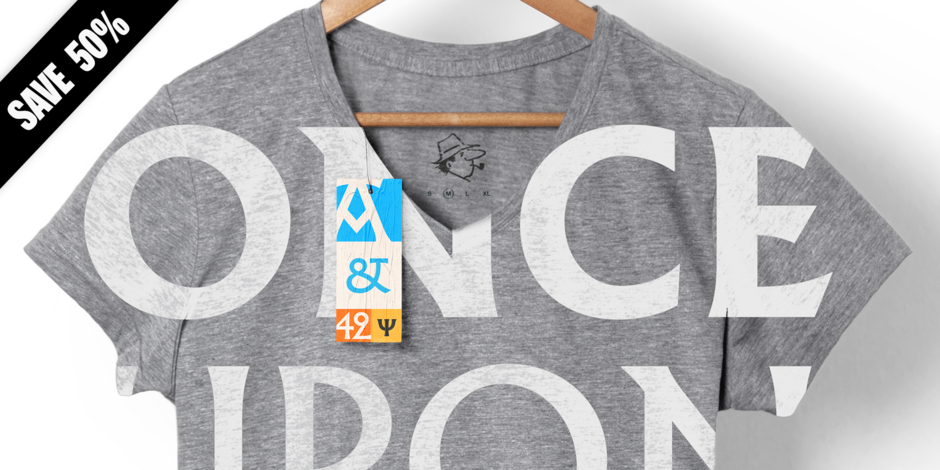
Albertus® Nova by Monotype
Albertus® Nova is a faithful digital revival of Berthold Wolpe’s earlier design of Albertus and is one of the five designs in The Wolpe Collection of typefaces. This new design enlarges the typeface set from its previous two weights into a robust set of five ranging from thin to black, all with extended language support including Cyrillic and Greek. Berthold Wolpe began working on Albertus in 1932, at the encouragement of Stanley Morison. Morison saw an example of Wolpe’s engraved lettering and liked it so much that he commissioned a typeface based on the design. Since then, the original Albertus typeface has been used on book covers, in branding, on signs and in video games.
Alternate Gothic by Linotype
Alternate Gothic was designed by Morris Fuller Benton for the American Typefounders Company (ATF) in 1903. A version for the Intertype machine was released in 1958. The style of Alternate Gothic is in the 19th Century manner. All three weights of Alternate Gothic are bold and narrow. In fact, this face is essentially a condensed version of Benton’s other well-known sans serif types, like Franklin Gothic or News Gothic. In the early twentieth century, the modern concept of type families” had not yet been formed. Although Benton designed his sans serifs to harmonize with each other, they were given different names. Robust, dark, and coolly competent, Alternate Gothic is a good choice when strong typographic statements must fit into tight spaces.”
Chronicle® Deck by Hoefler & Co.
A vigorous hybrid of time-honored forms and contemporary design strategies, Chronicle Display (a suite of headline faces) and Chronicle Text (a suite of text faces) bring strength and utility to the classic serif.